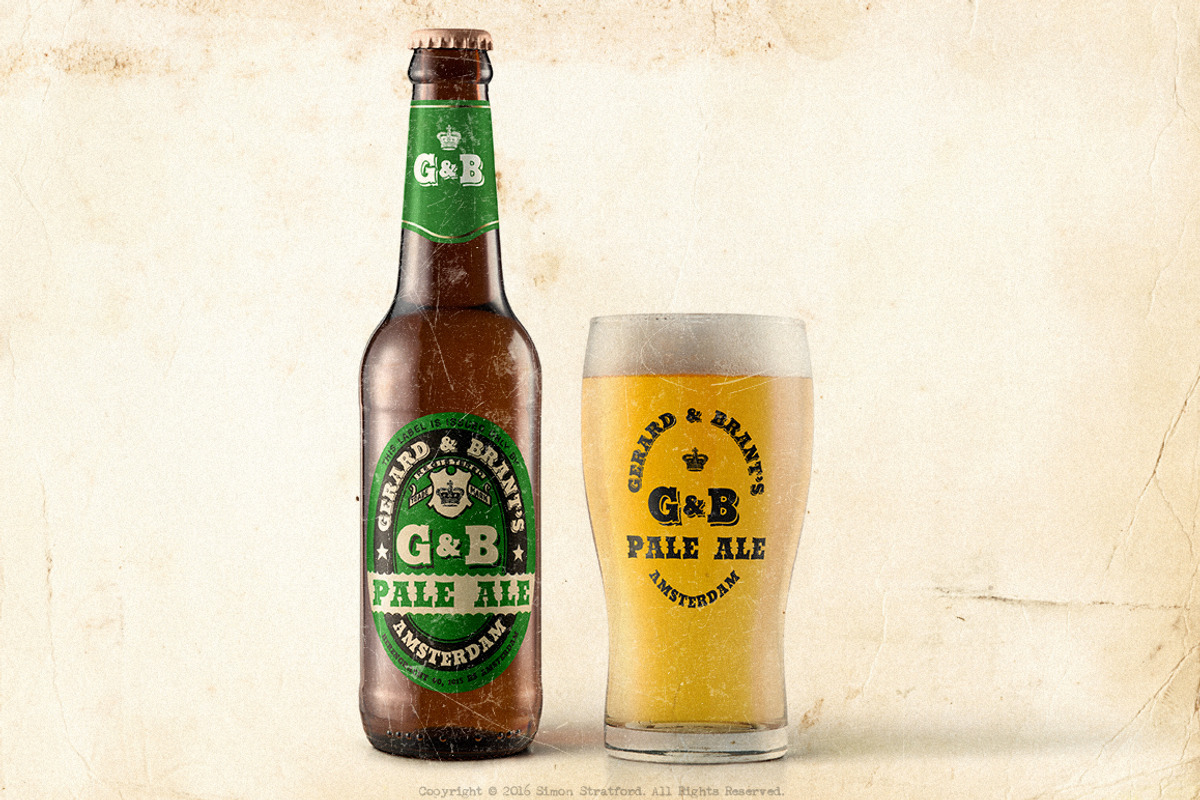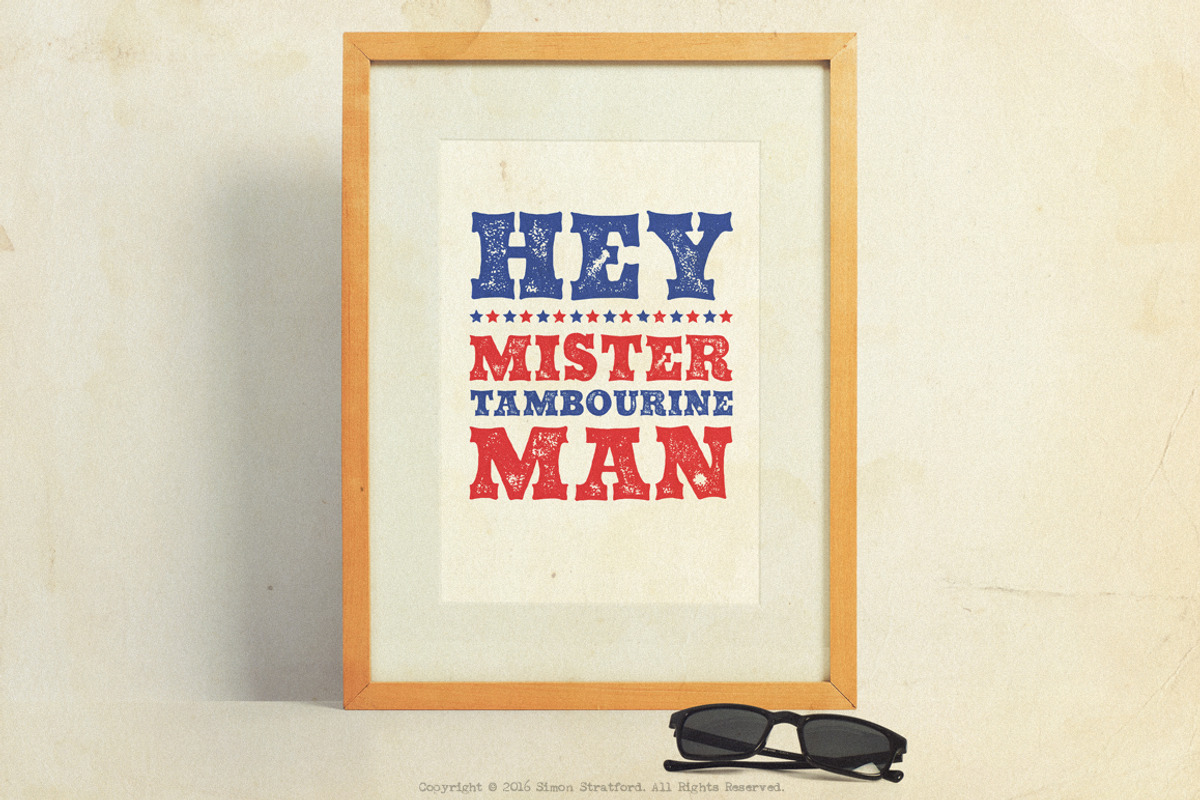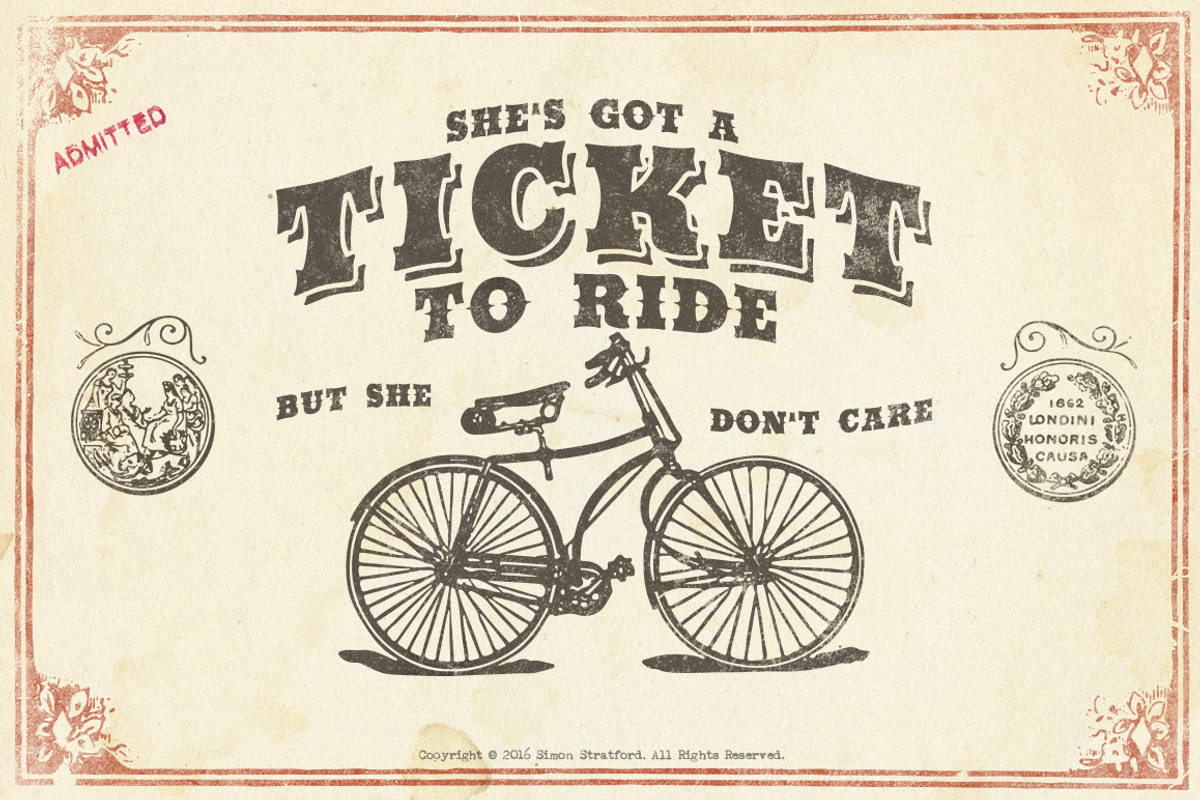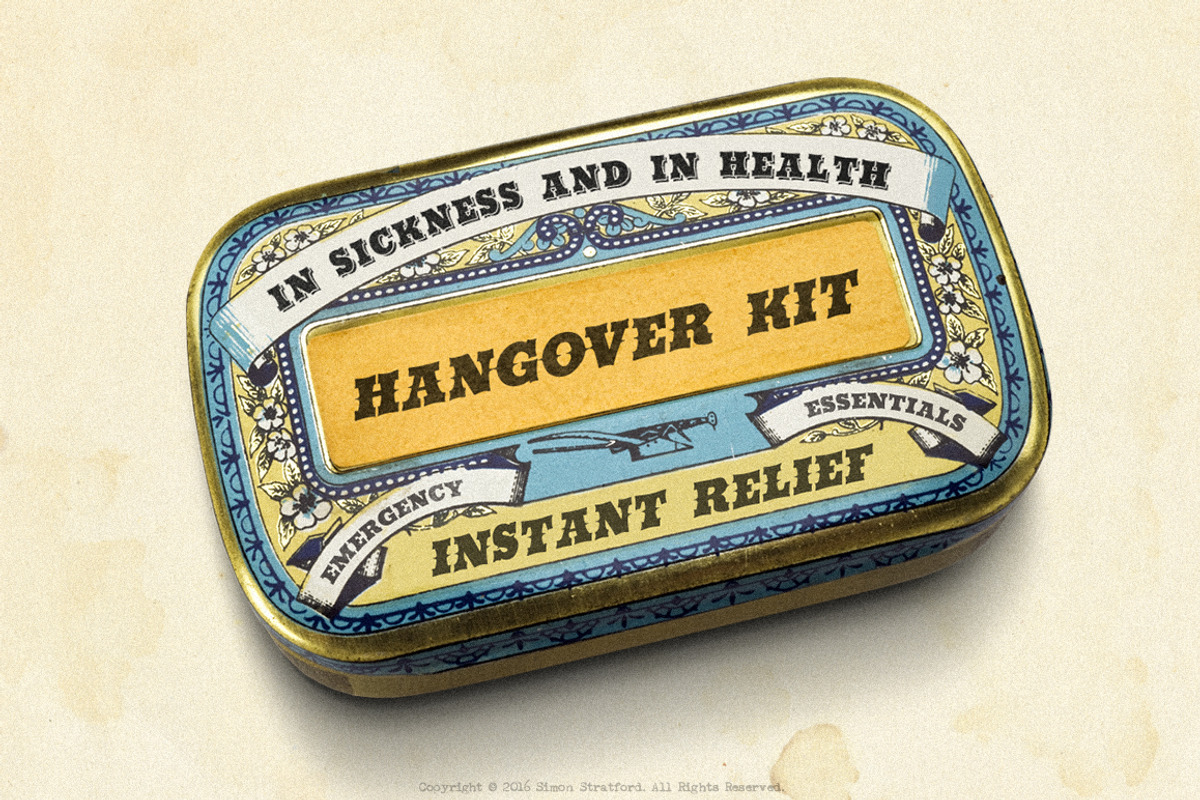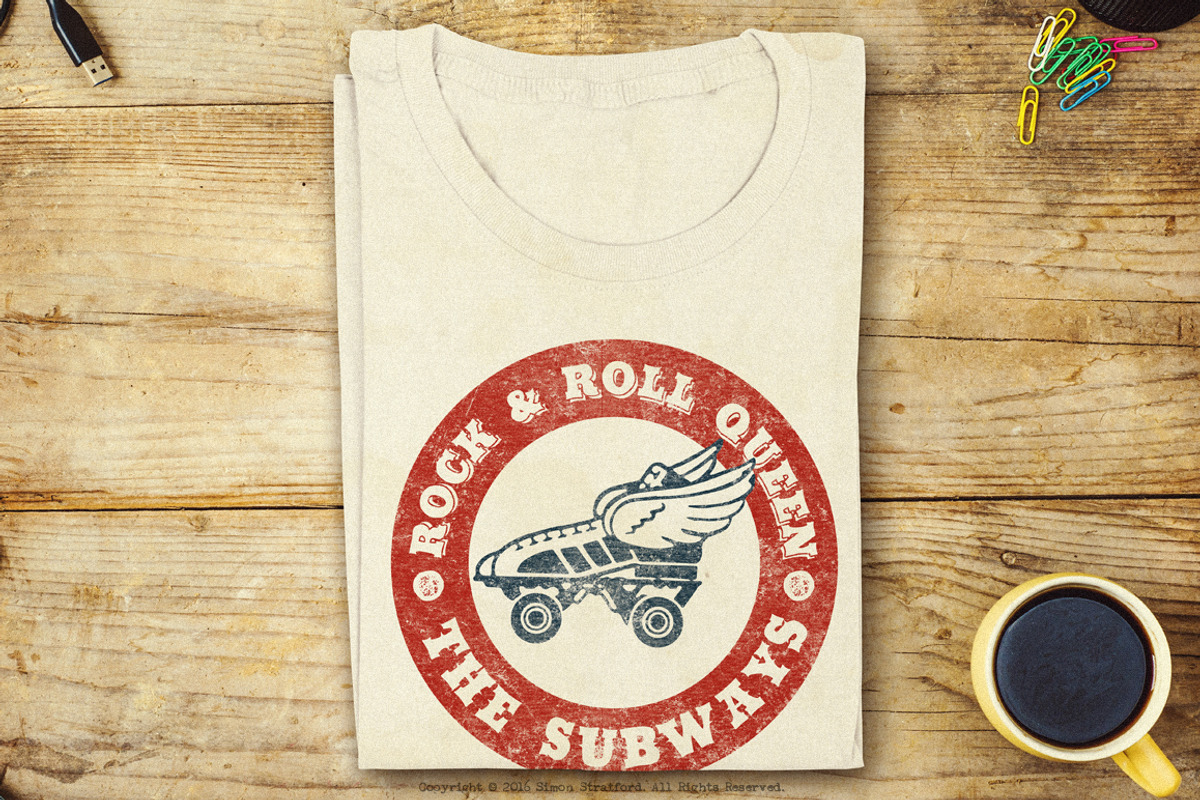
Display font Lawless sans serif
Display font Lawless sans serif by Itsmesimon is a font selected for branding, posters, packaging, typography.
- Lawless Regular
- Lawless Grunge
- Lawless Shadow
- Lawless Spur
Why Display font Lawless sans serif is worth a look
Display font Lawless sans serif by Itsmesimon fits naturally into Branding, posters, packaging, typography.